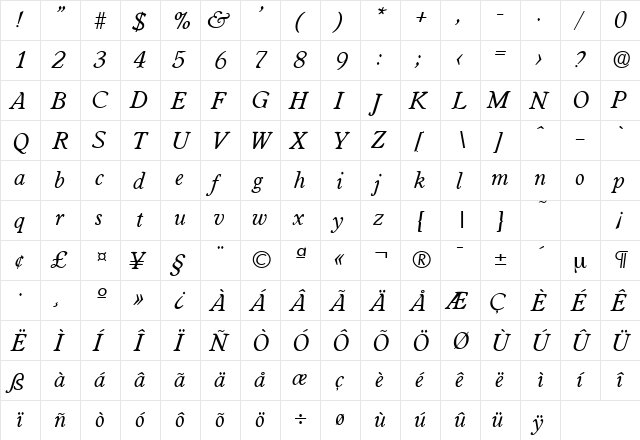
Worcester-Serial RegularItalic
Design Context for Worcester-Serial Typeface
Worcester-Serial takes a measured approach to typography — its balanced proportions and neutral character make it a reliable workhorse for both digital and print work. The slanted form adds forward momentum and visual energy.
Pro Tip: Use Worcester-Serial for emphasis, pull quotes, and subheadings where its slanted energy can add rhythm to the layout.